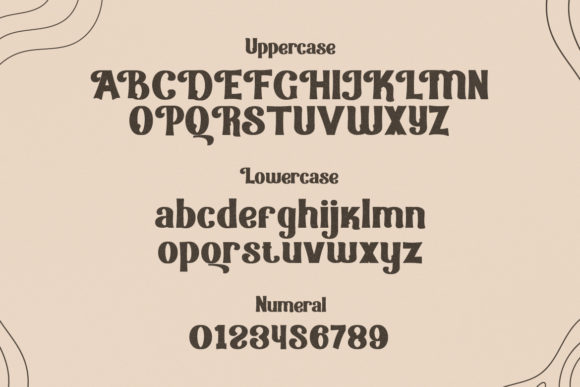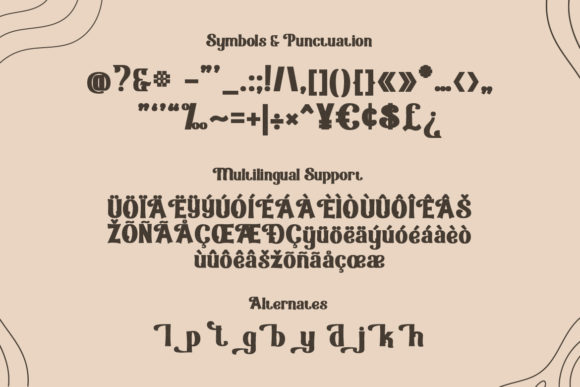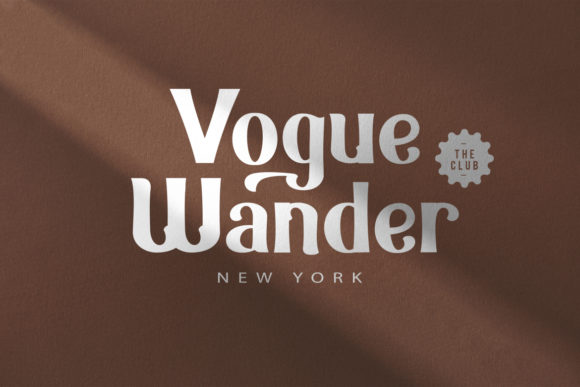
Introduction to Quirky Bay Font
Quirky Bay is a classy serif font.
It features cute and extended characters that will look particularly adept when used in logos, branding, packaging design, and much more Get inspired by its authentic feel and use it to create radiant designs.
Key Features of Quirky Bay Font
Why Choose Quirky Bay Font?
Quirky Bay Font offers exceptional quality and versatility, making it a valuable addition to your design toolkit. Whether you’re creating for personal projects or commercial use, Quirky Bay Font delivers professional results.